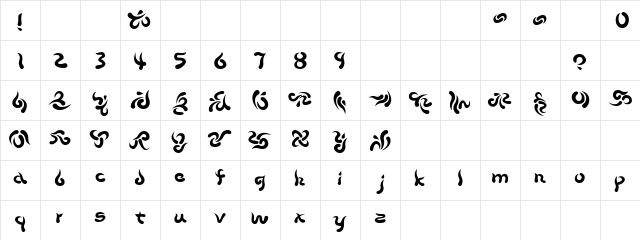
Beech Regular Free Font
Beech Regular
Design Context for Beech
Beech is a composed and adaptable typeface that performs quietly and consistently across a wide range of design contexts.